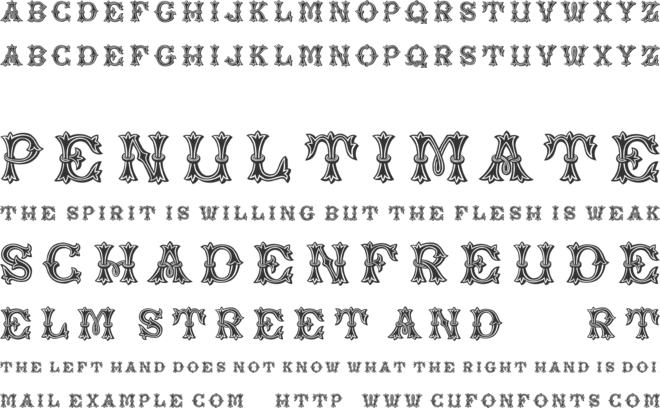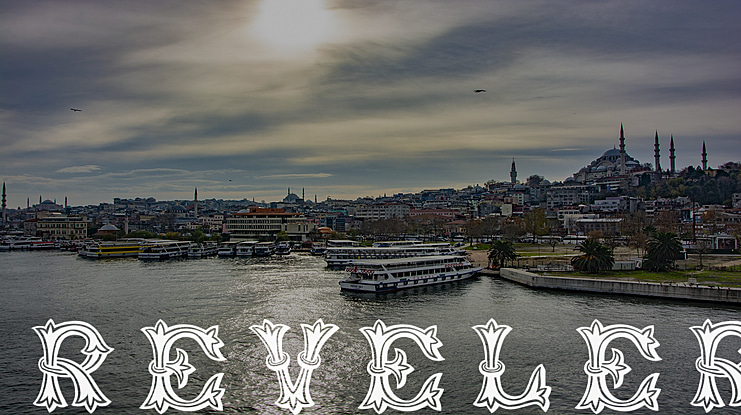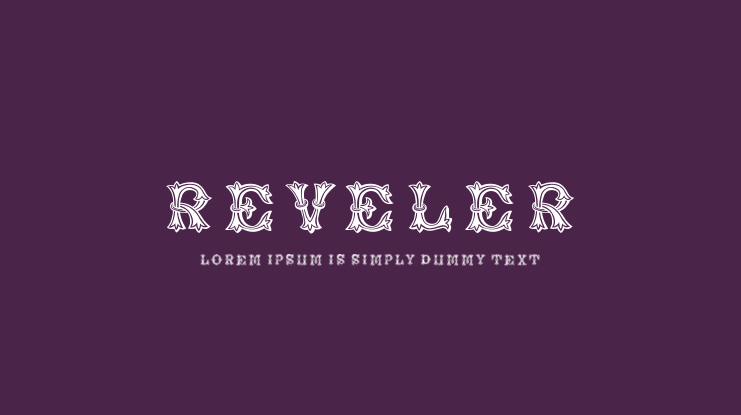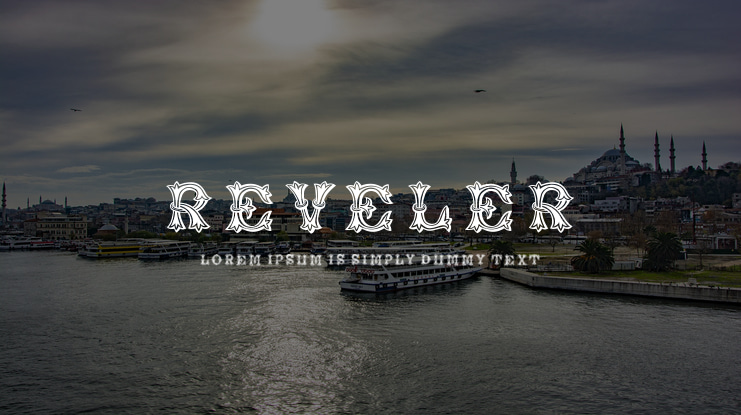
Reveler Font
Digitized plate from book "Draughtsman's Alphabets" (1877) by Hermann Esser. "Reveler" is 100% free for personal and commercial use! Enjoy!